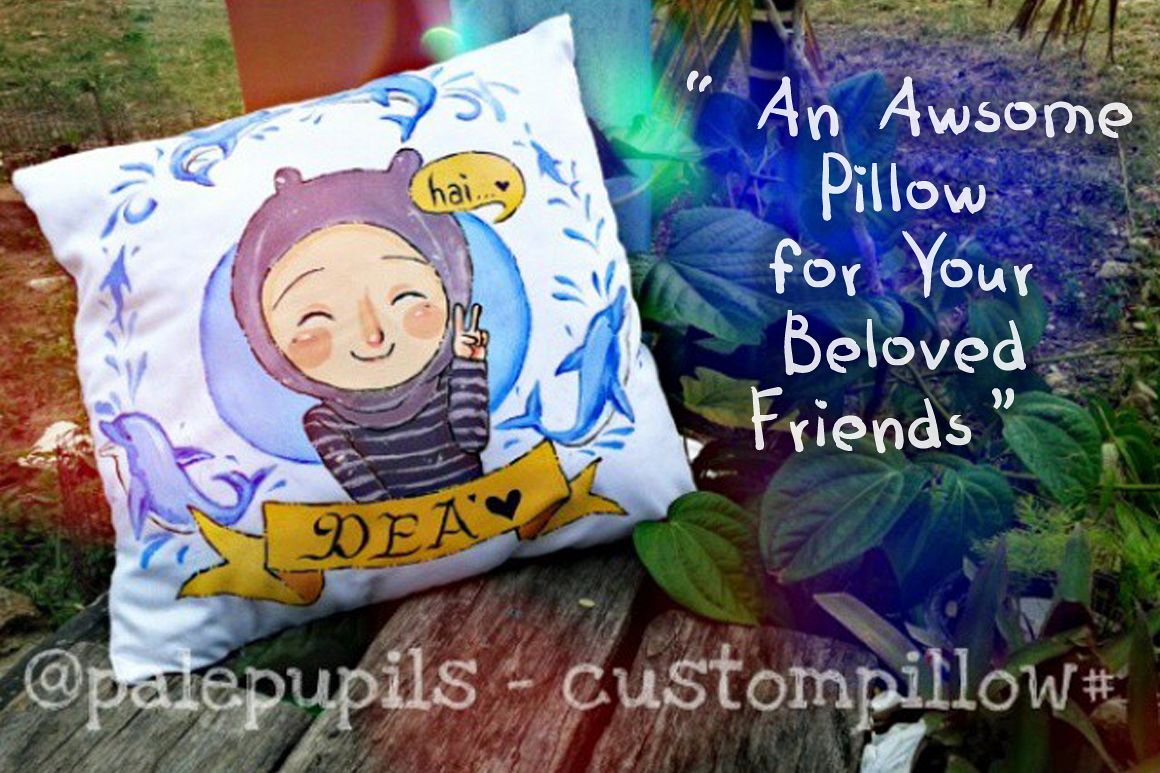
childish font
I am pleased to present to you my font. A unique font that looks like Children handwriting, suitable for your wedding invitations, greeting cards, party invitations, art project & posters, birthday projects and more.